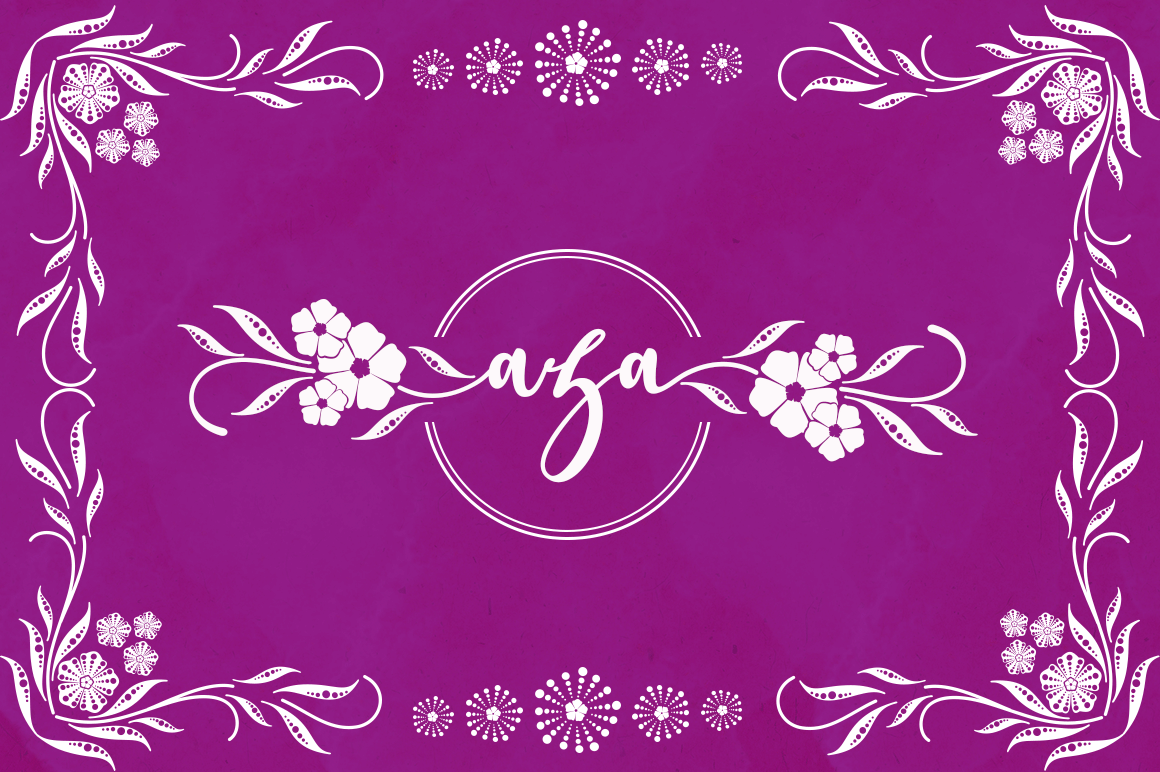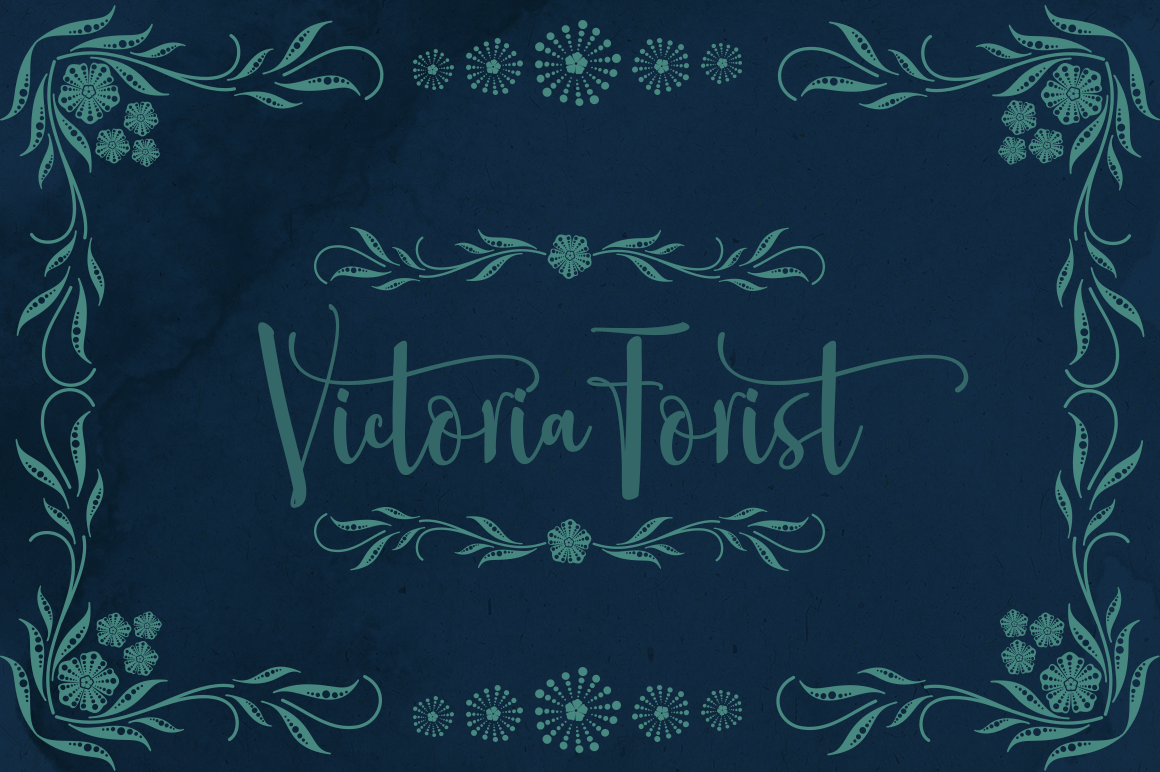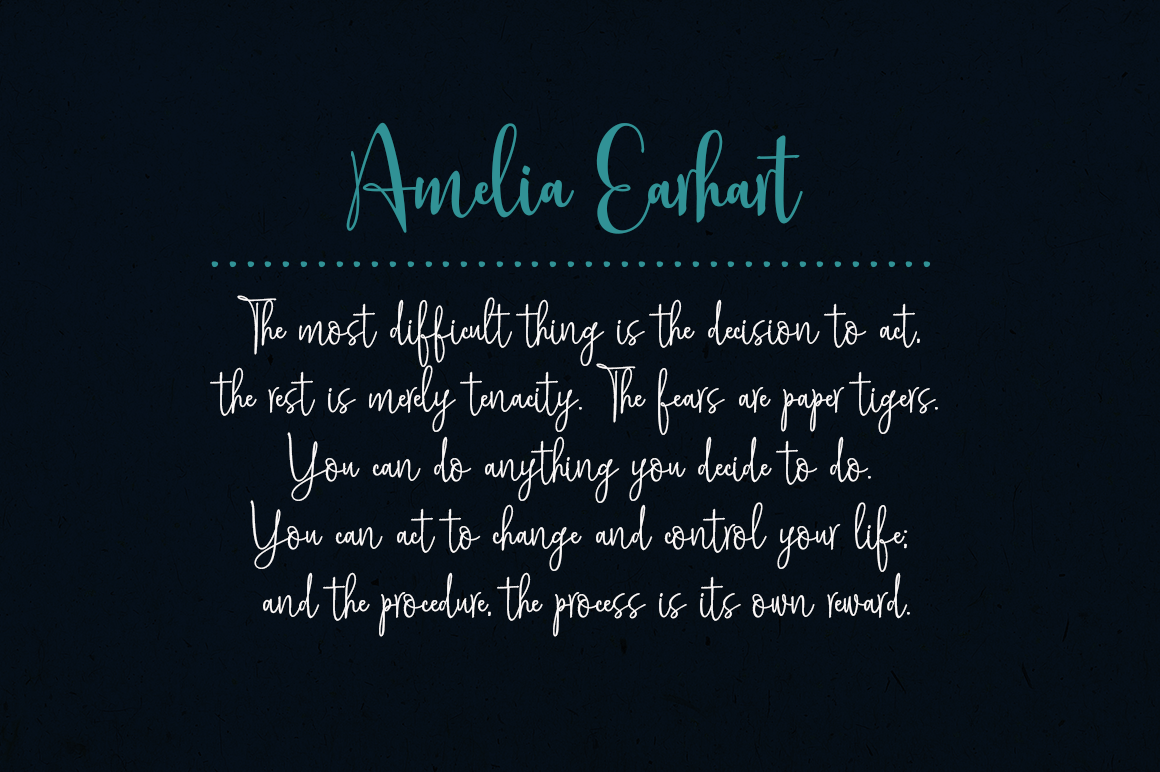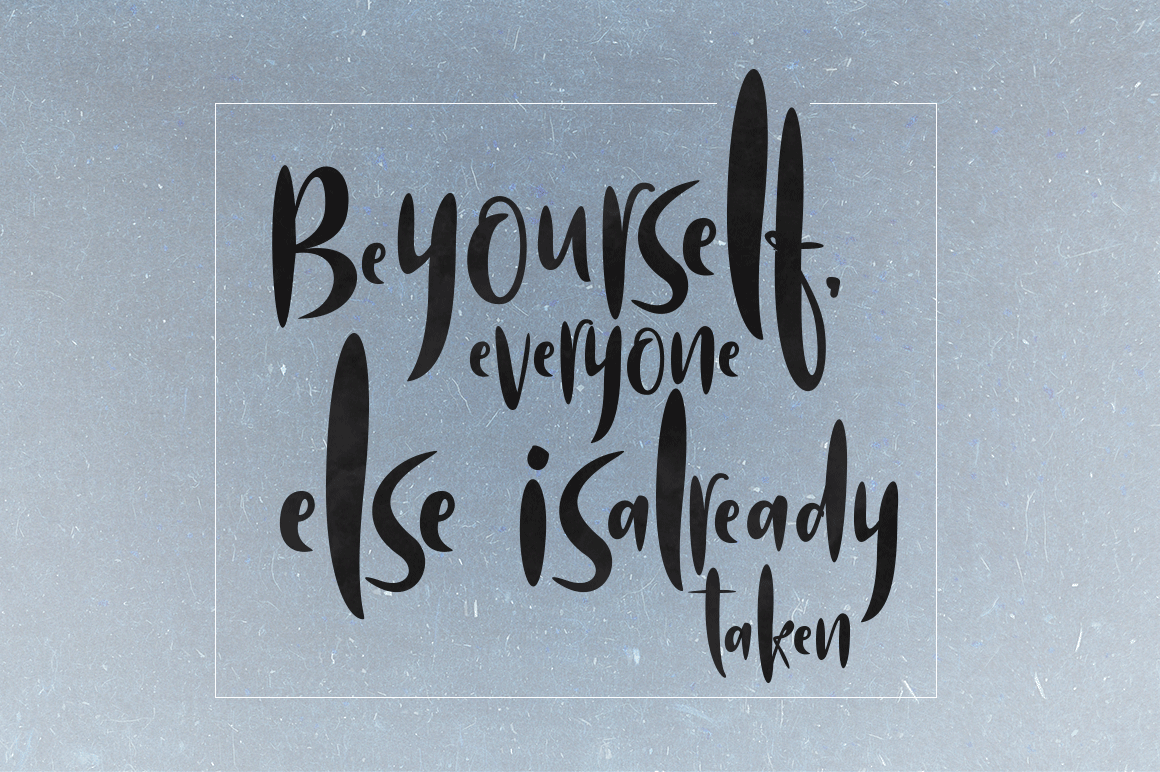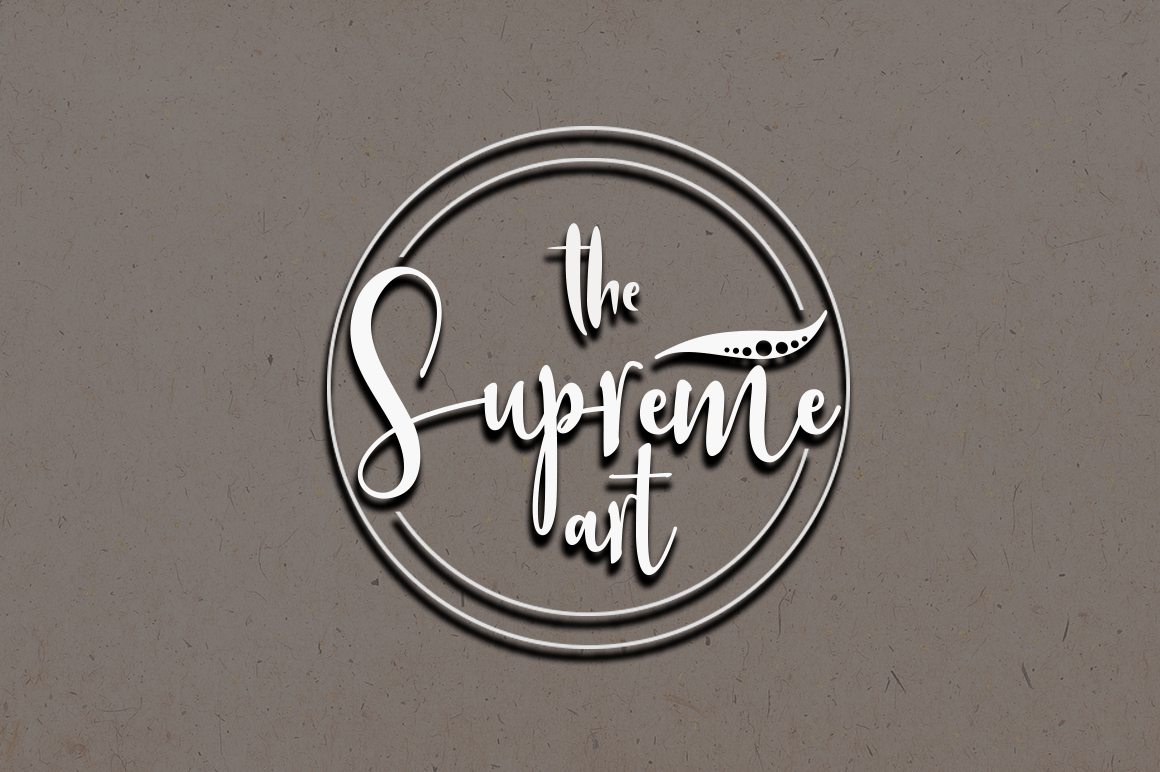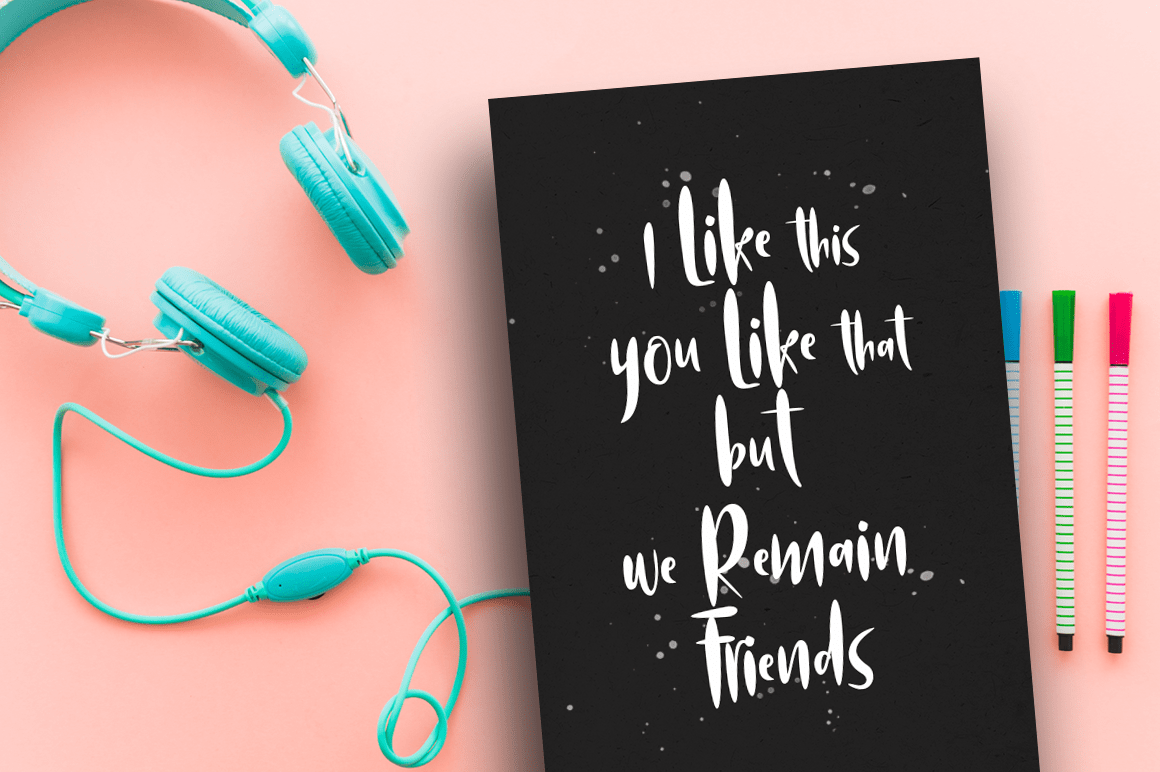
Misteris
Font Family by Groen Studio
Misteris are three sets of fonts, it is that the fonts brush that has a different style. This is the perfect choice for personal branding project. Can be used for various purposes.such as headings, logos, wedding invitations, t-shirts, letterhead, lable, news, posters, badges etc. To enable the OpenType Stylistic alternates, you need a program that supports OpenType features such as Adobe Illustrator CS, Adobe Indesign and CorelDraw X6-X7.
Misteris Bold is hand drawn letter script with Lowercase and Uppercase letters, numbers and various punctuation, ligature and Alternatives features 500 glyphs
Misteris Slim is hand drawn letter script with Lowercase and Uppercase letters, numbers and various punctuation, ligature and Alternatives features 500 glyphs
Misteris Display is hand drawn letter script with Lowercase and Uppercase letters, numbers and various punctuation. features 170 glyphs